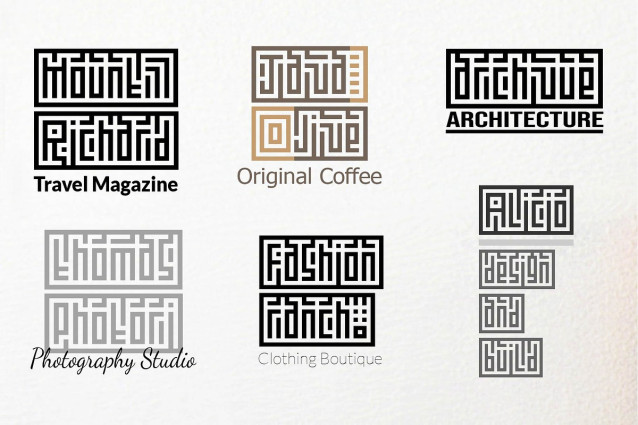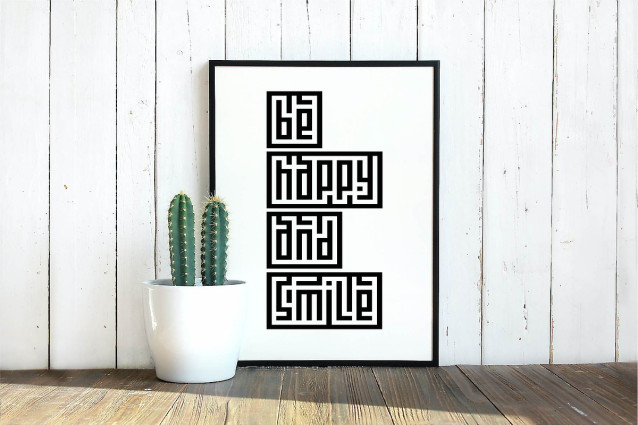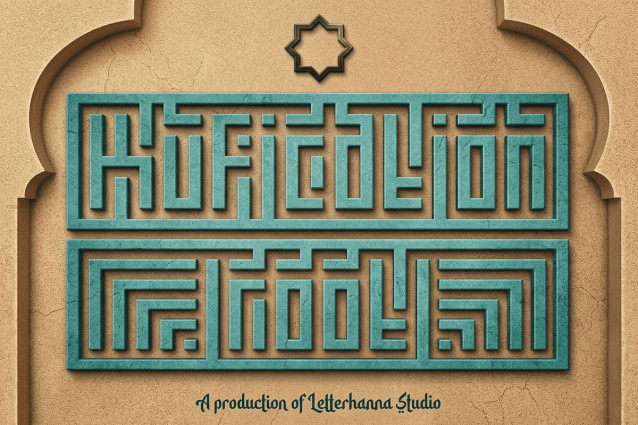
Kufication Root Font
Kufication Root Font is a Latin display font inspired by Arabic Square Kufic calligraphy — one of the most geometric and structurally precise scripts in Islamic visual history. Every letterform is built on a strict grid system, giving it a bold, architectural quality that feels both timeless and contemporary.
Designed for creatives who need elegance with cultural depth, Kufication Root is especially suited for Islamic branding, heritage projects, and any identity that benefits from a strong, distinctive visual voice.